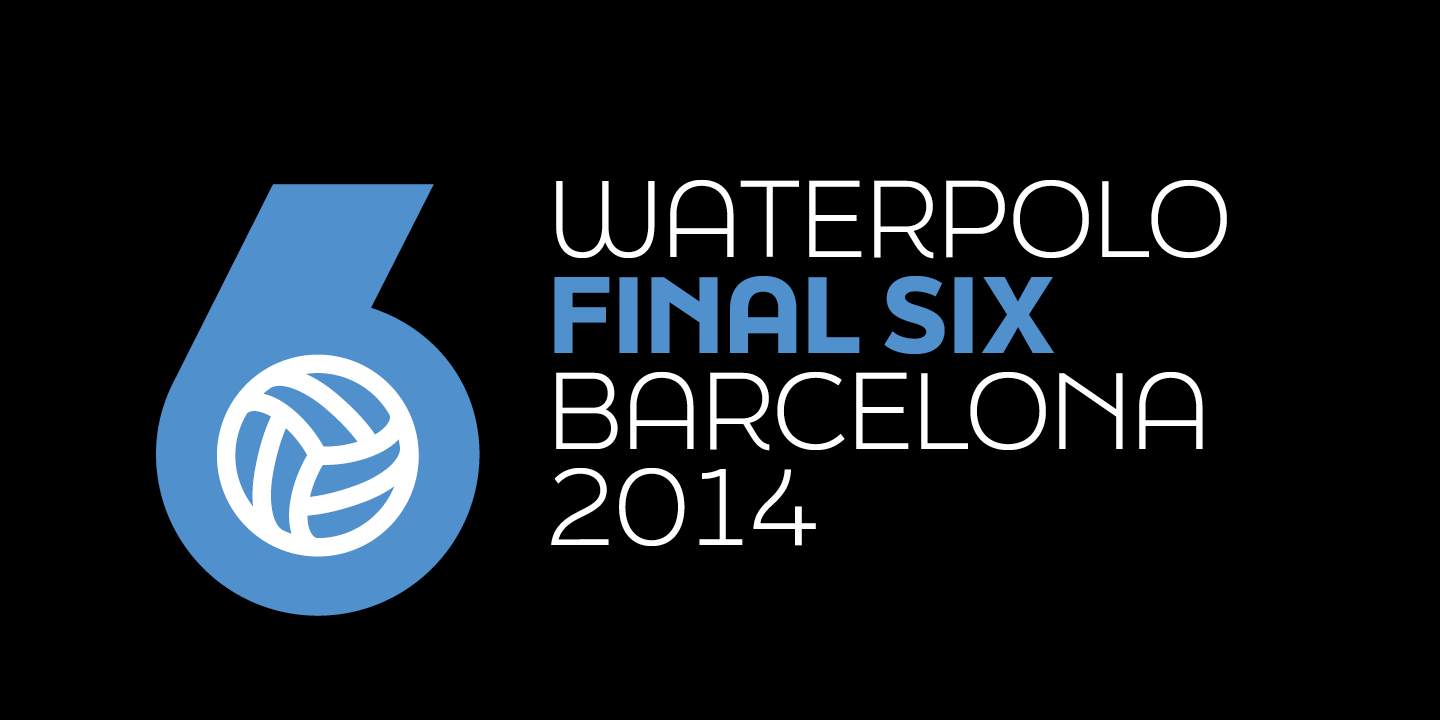
Final Six Font is perfect for sports championship branding, tournament finale materials, competitive gaming interfaces, championship trophy engravings, playoff marketing campaigns, victory celebration designs, final match promotions, championship team logos, decisive moment graphics, and climactic event announcements.
What makes Final Six Font so exciting is its championship intensity that embodies the dramatic tension and ultimate determination found in decisive competitive moments. This typeface features bold, commanding letterforms with powerful construction and championship-level impact that communicates the high stakes and emotional intensity of final competitions. The font's victorious and decisive character delivers maximum impact and competitive energy, making it perfect for sports organizations seeking to capture the excitement of championship moments and appeal to audiences who live for the thrill of ultimate competition and victory.
Final Six Font family includes Regular, Bold, Black, and Championship weights, along with victory alternates and competitive variations. The family also features special character sets including sports symbols, championship emblems, and victory decorative elements that enhance the font's connection to competitive sports and championship achievement themes.
The Final Six Font Free Download package offers designers access to championship typography that brings competitive intensity to any sports-focused project. This powerful typeface combines athletic design principles with maximum impact functionality, creating a compelling visual tool for sports brands and competition-oriented organizations. Whether you're developing championship event identities, designing victory publications, or creating competitive marketing materials, this font provides the winning character needed to communicate championship excellence and competitive spirit.
Final Six Font supports comprehensive character sets including Latin alphabets, numbers, punctuation marks, and special championship symbols. The font's powerfully constructed spacing creates maximum competitive impact while ensuring excellent readability across all sports applications. Its OpenType features include contextual alternates, championship ligatures, and victory typography options that expand creative possibilities for competitive design projects.
Professional designers choose Final Six Font for projects requiring authentic competitive appeal and championship aesthetics. The font excels in applications where victory and championship intensity are essential, offering the perfect solution for brands seeking to communicate winning spirit, competitive excellence, and connection to championship achievements. Its championship character makes it ideal for sports leagues, competitive gaming organizations, and victory-focused marketing campaigns.
The Final Six Font Free Download provides creative professionals with an exceptional opportunity to explore championship typography. With its competitive character variations, victory-inspired design elements, and championship quality, this font represents outstanding value for designers, sports organizations, and creative agencies specializing in competitive visual communications that celebrate the thrill of victory and the intense excitement of championship competition and ultimate achievement.